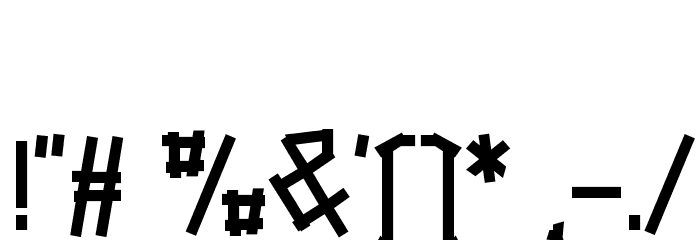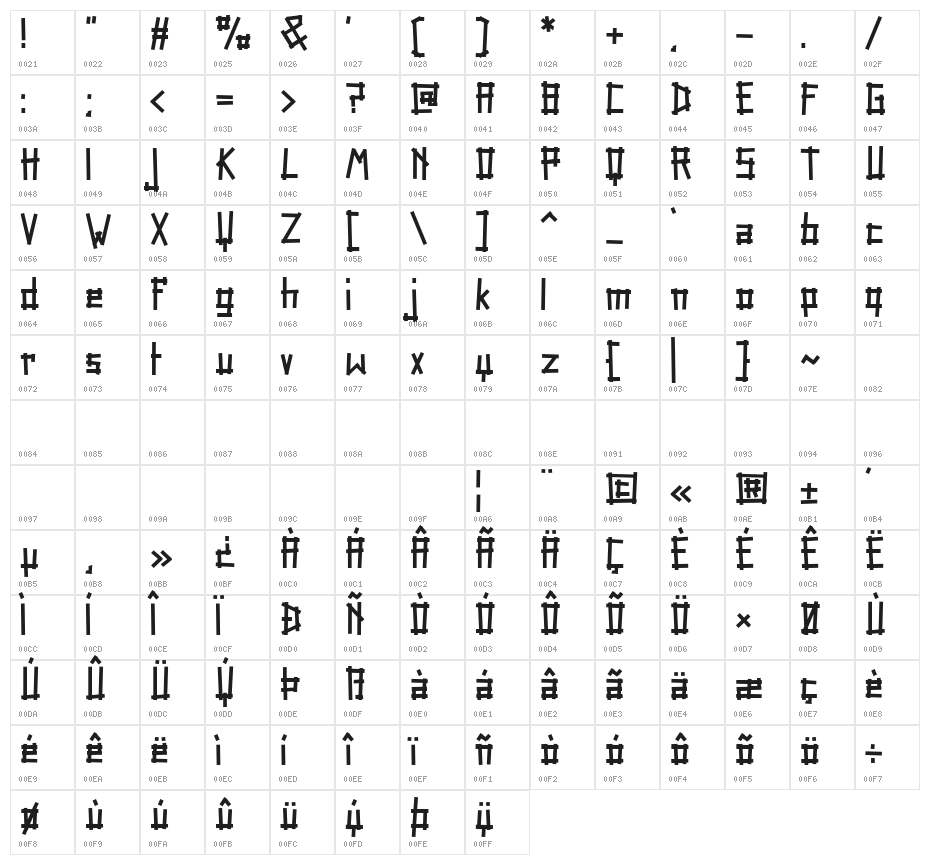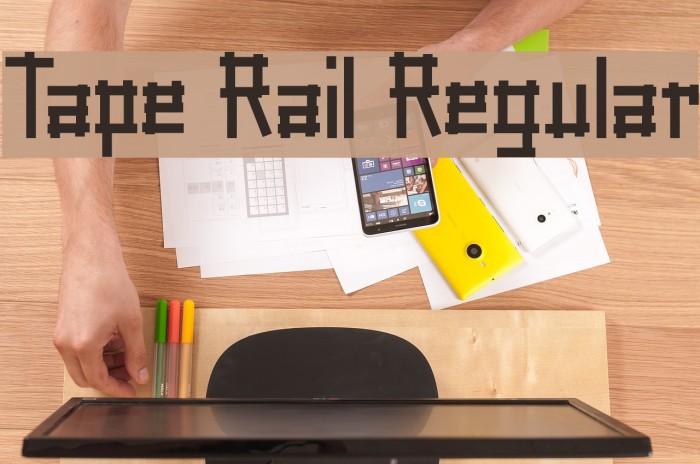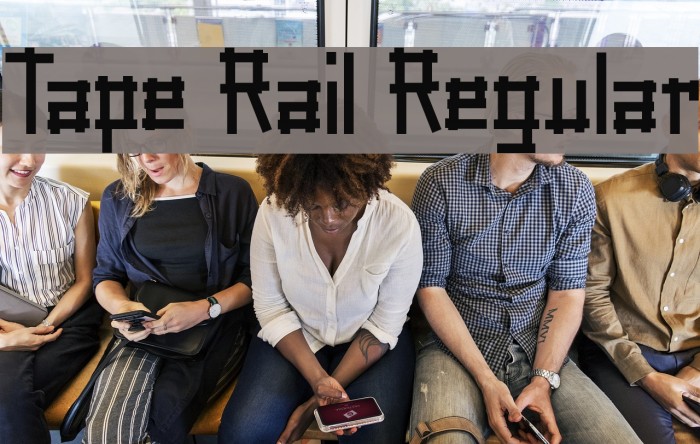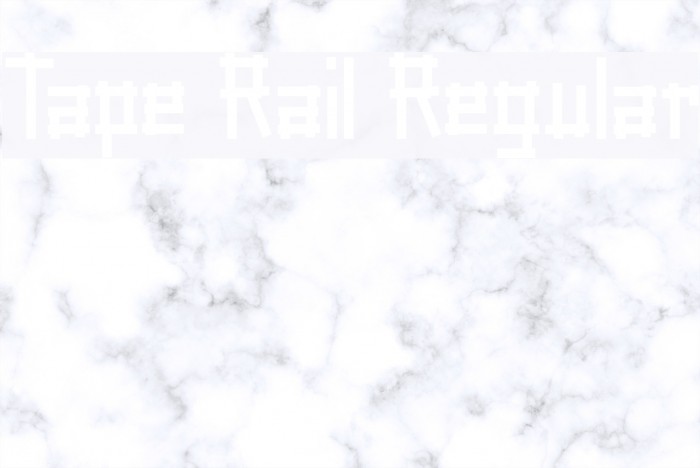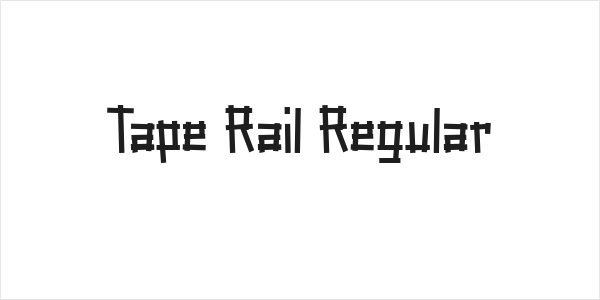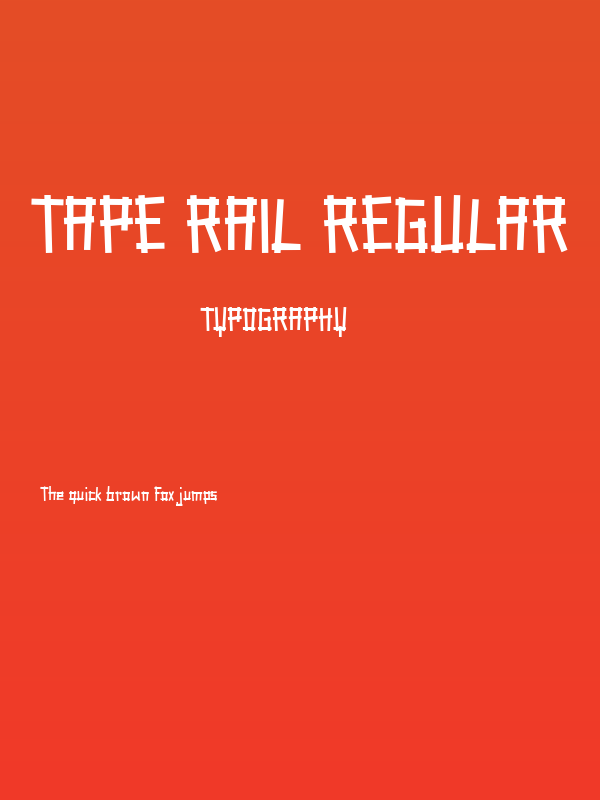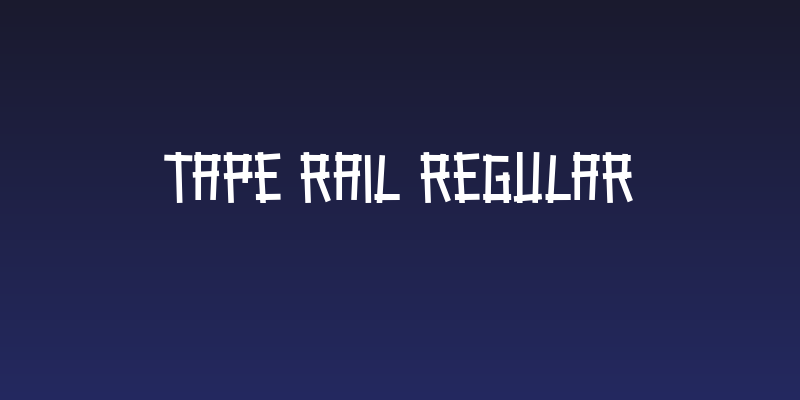
Tape Rail Regular Font
Tape Rail Regular Description
This font features a unique, geometric style with a pixelated appearance, reminiscent of retro digital displays. The characters are constructed with straight lines and sharp angles, giving it a distinct, mechanical feel. Uppercase and lowercase letters maintain a consistent height, contributing to a uniform look. The font includes a full set of numerals and a variety of special characters, all adhering to the same blocky aesthetic. Its bold strokes and high contrast make it highly legible, even at smaller sizes, while the tight character spacing ensures compact text blocks.
Use CaseLogos, Headlines, Digital displays
Proposed ProjectsIdeal for digital art, retro-themed designs, video game graphics, and tech-oriented branding.